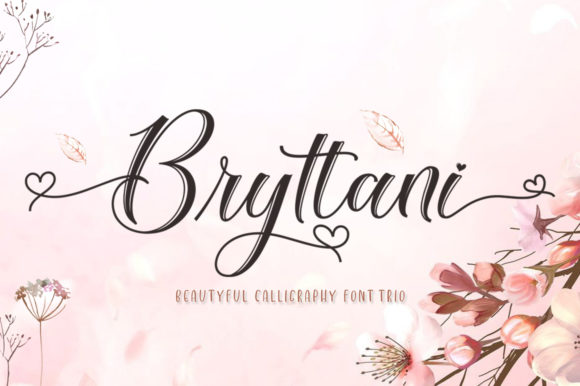
The Elegant Charm of Bryttani Font: A Designer’s Delight
I’ll never forget the time I was working on a wedding invitation project, and my client asked for a font that exuded elegance and sophistication. I scoured the internet, tried out countless fonts, but nothing seemed quite right. That was until I stumbled upon Bryttani Font. ✨ It was love at first sight! The flowing lines, the varying baseline, and the gorgeous glyphs all came together to create a truly stunning font that perfectly captured the essence of the occasion.
An Honest Review of Bryttani Font
- ✨ Elegant and flowing design that’s perfect for wedding invitations, thank you cards, and other formal designs
- ✅ Smooth lines and gorgeous glyphs that add a touch of sophistication to any design
- ✅ Stunning alternates that allow for endless creativity and customization
- ✅ Features a varying baseline that adds a touch of whimsy and personality to any design
While Bryttani Font is an amazing font, there are a few things to keep in mind. ⚠️ Some users have reported that the font can be a bit tricky to work with in certain design programs. Additionally, the font’s elegant and flowing design may not be suitable for very long blocks of text. 🤔
The Story Behind Bryttani Font
Bryttani Font was designed by a talented typographer who’s passionate about creating beautiful and elegant fonts. The font’s design is inspired by traditional calligraphy and handwriting, with a modern twist. The result is a font that’s both elegant and flowing, with a unique personality that’s sure to make your designs stand out.
Q: What is Bryttani Font?
A: Bryttani Font is a beautiful and elegant script font that’s perfect for formal designs, such as wedding invitations, thank you cards, and other creative projects.